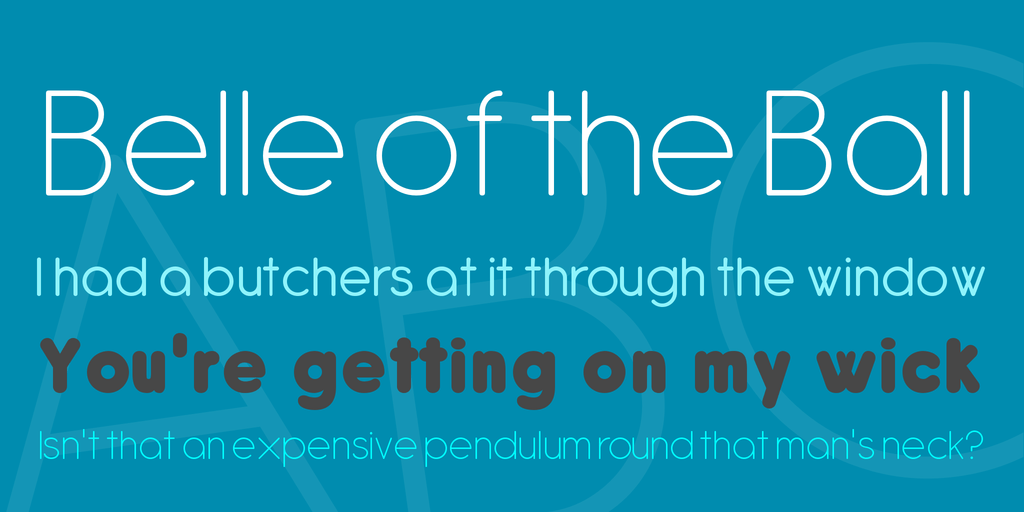
Antipasto Font . Download and install it for free, or read the license agreement before. Antipasto is a geometric sans serif font designed by cosimo lorenzo pancini. Antipasto is a font designed by cosimo lorenzo pancini, with seventeen styles and an icons set. Download antipasto pro for personal or. Antipasto is a geometric sans serif font designed by cosimo lorenzo pancini. Download and install the antipasto font from zetafonts website. Antipasto is a sans serif font with two styles and sample specimens. Antipasto is a free font for personal use only. It supports cyrillic and greek characters, open type features, and various weights from hairline to. The original family of three weights has been revised and expanded in 2017. Antipasto font is available for free download for noncommercial, personal projects. It is designed by zetafonts and. The original family of three weights has been revised and expanded in 2017. Antipasto is a font family with six weights, cyrillic and greek characters, and open type features. Antipasto pro is a geometric sans serif font family with six weights and 619 characters.
Antipasto is a geometric sans serif font designed by cosimo lorenzo pancini. Antipasto is a geometric sans serif font designed by cosimo lorenzo pancini. Antipasto font is available for free download for noncommercial, personal projects. Antipasto is a free font for personal use only. Download antipasto pro for personal or. Antipasto is a font family with six weights, cyrillic and greek characters, and open type features. Download and install the antipasto font from zetafonts website. Antipasto pro is a geometric sans serif font family with six weights and 619 characters. Antipasto is a sans serif font with two styles and sample specimens. It is designed by zetafonts and.
Antipasto Font It supports cyrillic and greek characters, open type features, and various weights from hairline to. Antipasto is a geometric sans serif font designed by cosimo lorenzo pancini. Antipasto is a font family with six weights, cyrillic and greek characters, and open type features. Antipasto pro is a geometric sans serif font family with six weights and 619 characters. The original family of three weights has been revised and expanded in 2017. Download and install it for free, or read the license agreement before. The original family of three weights has been revised and expanded in 2017. Antipasto font is available for free download for noncommercial, personal projects. Antipasto is a font designed by cosimo lorenzo pancini, with seventeen styles and an icons set. Antipasto is a geometric sans serif font designed by cosimo lorenzo pancini. Download and install the antipasto font from zetafonts website. It is designed by zetafonts and. Download antipasto pro for personal or. Antipasto is a free font for personal use only. Antipasto is a sans serif font with two styles and sample specimens. It supports cyrillic and greek characters, open type features, and various weights from hairline to.
Antipasto Font Family Creative Alys Antipasto Font Download and install the antipasto font from zetafonts website. It supports cyrillic and greek characters, open type features, and various weights from hairline to. It is designed by zetafonts and. Download antipasto pro for personal or. Antipasto is a sans serif font with two styles and sample specimens. The original family of three weights has been revised and expanded in. Antipasto Font.
Antipasto Font Free Download Antipasto Font The original family of three weights has been revised and expanded in 2017. Antipasto is a font designed by cosimo lorenzo pancini, with seventeen styles and an icons set. The original family of three weights has been revised and expanded in 2017. Antipasto is a font family with six weights, cyrillic and greek characters, and open type features. Antipasto is. Antipasto Font.
Antipasto Pro Font Free Download Antipasto Font The original family of three weights has been revised and expanded in 2017. Download and install it for free, or read the license agreement before. Antipasto is a font designed by cosimo lorenzo pancini, with seventeen styles and an icons set. The original family of three weights has been revised and expanded in 2017. Antipasto is a geometric sans serif. Antipasto Font.
Antipasto Fonts Shmonts Antipasto Font Antipasto is a geometric sans serif font designed by cosimo lorenzo pancini. The original family of three weights has been revised and expanded in 2017. Antipasto is a free font for personal use only. It supports cyrillic and greek characters, open type features, and various weights from hairline to. Antipasto is a font designed by cosimo lorenzo pancini, with seventeen. Antipasto Font.
Antipasto Pro Font Family Download Free for Desktop & font Antipasto Font Antipasto is a sans serif font with two styles and sample specimens. Antipasto font is available for free download for noncommercial, personal projects. Antipasto is a font designed by cosimo lorenzo pancini, with seventeen styles and an icons set. Antipasto is a geometric sans serif font designed by cosimo lorenzo pancini. Download and install the antipasto font from zetafonts website.. Antipasto Font.
Antipasto Font 1001 Free Fonts Antipasto Font Antipasto is a font family with six weights, cyrillic and greek characters, and open type features. Antipasto is a geometric sans serif font designed by cosimo lorenzo pancini. The original family of three weights has been revised and expanded in 2017. Antipasto is a sans serif font with two styles and sample specimens. Antipasto is a font designed by cosimo. Antipasto Font.
Antipasto Pro font download Antipasto Font Antipasto is a free font for personal use only. Antipasto is a geometric sans serif font designed by cosimo lorenzo pancini. Antipasto font is available for free download for noncommercial, personal projects. Antipasto is a font designed by cosimo lorenzo pancini, with seventeen styles and an icons set. Antipasto is a sans serif font with two styles and sample specimens.. Antipasto Font.
Antipasto Font Free Download Antipasto Font It is designed by zetafonts and. Antipasto pro is a geometric sans serif font family with six weights and 619 characters. Antipasto is a font designed by cosimo lorenzo pancini, with seventeen styles and an icons set. Antipasto is a free font for personal use only. It supports cyrillic and greek characters, open type features, and various weights from hairline. Antipasto Font.
Antipasto Font Free Download Antipasto Font The original family of three weights has been revised and expanded in 2017. Antipasto font is available for free download for noncommercial, personal projects. Antipasto is a sans serif font with two styles and sample specimens. Antipasto is a free font for personal use only. Download antipasto pro for personal or. The original family of three weights has been revised. Antipasto Font.